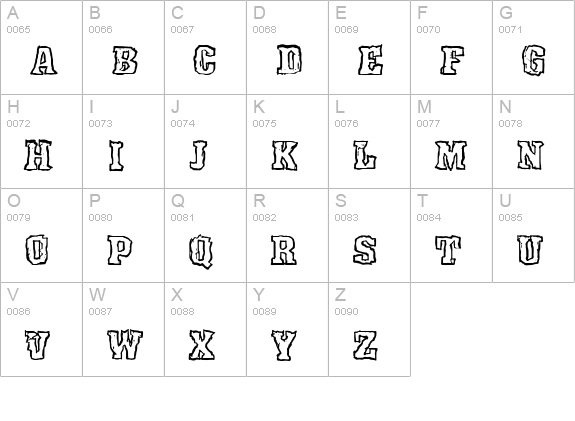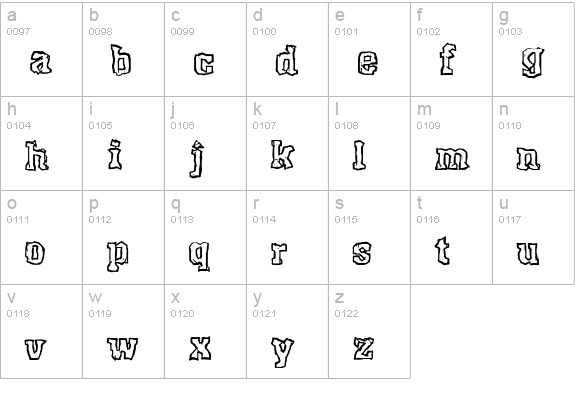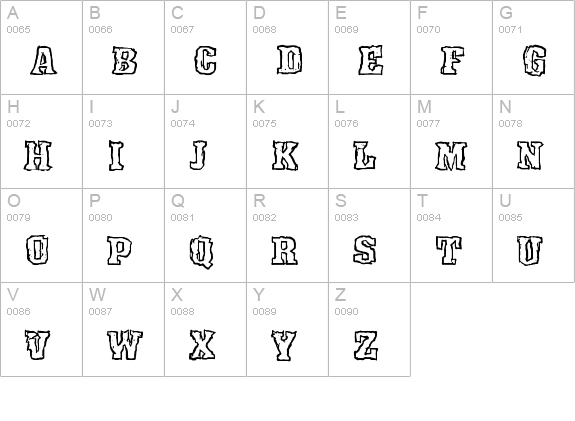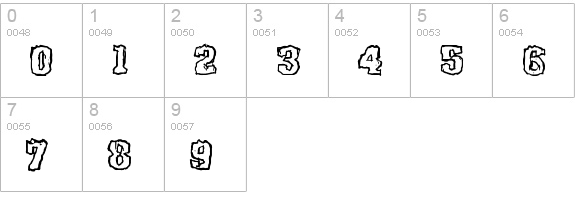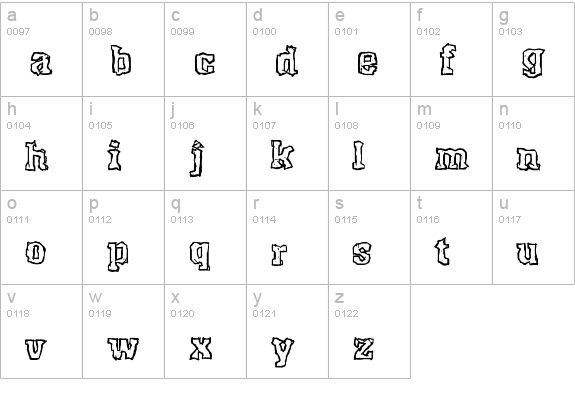
Rocky Shore Font Details
Rocky Shore font is a captivating and versatile typeface that will add a touch of elegance and sophistication to any design project. It is the perfect combination of boldness and delicacy, making it suitable for a wide range of applications. Whether you are designing a logo, creating a poster, or crafting a wedding invitation, Rocky Shore font will effortlessly elevate your design to new heights. One of the best things about Rocky Shore font is that it is free! Yes, you read that right. This stunning font can be downloaded for free at FontsMarket.com. With just a few clicks, you can have access to this amazing font and start using it in your projects right away. The beauty of Rocky Shore font lies in its intricate details. Every letter has been meticulously crafted to ensure the highest level of quality and aesthetics. The elegant curves, sharp edges, and unique shapes make each character a work of art on its own. When combined, they create a harmonious and visually striking typography that is sure to leave a lasting impression. But Rocky Shore font is not just about looks. It also offers excellent legibility, making it easy to read even at smaller sizes. This makes it a versatile choice for both print and digital media. Whether you are designing a magazine layout or a website interface, Rocky Shore font will deliver clear and crisp text that is a pleasure to read. The versatility of Rocky Shore font extends beyond its looks and legibility. It also comes with a wide range of glyphs and special characters, allowing you to add a personal touch to your designs. Whether you need to add accents or symbols, Rocky Shore font has you covered. So why wait? Head over to FontsMarket.com and download Rocky Shore font for free. Experience the beauty and versatility of this captivating typeface and take your designs to the next level. With Rocky Shore font, the possibilities are endless.